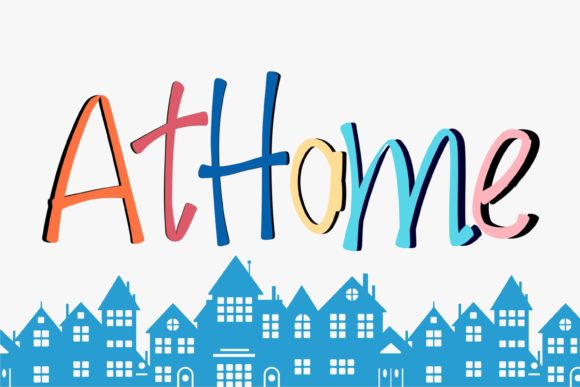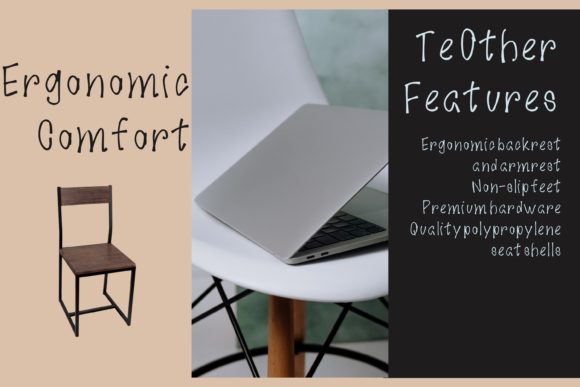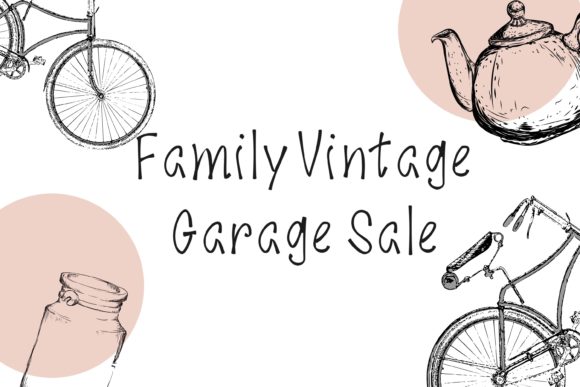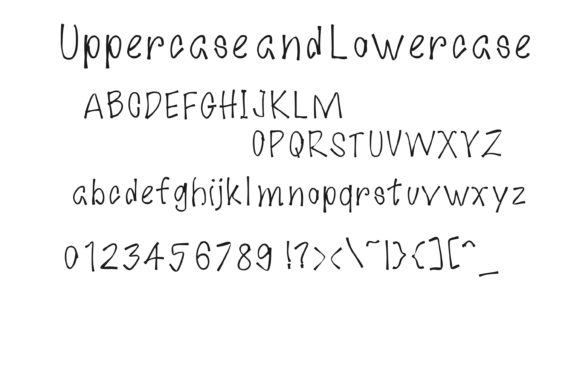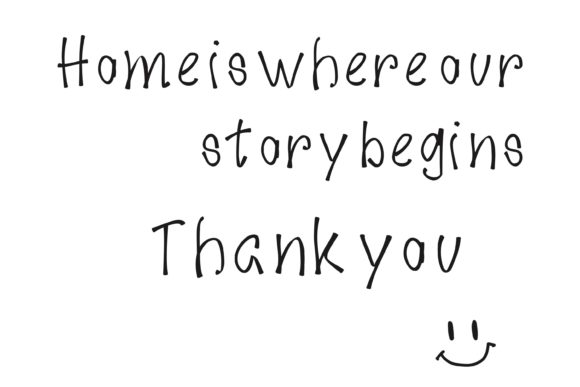
AT HOME FONT SPECIMEN
“At home” is a simple and cute slab serif font. It can easily elevate the look of your beautiful projects with its well-assorted and friendly characters!